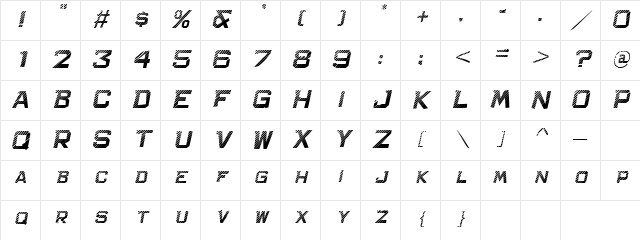
Complete Bachelor Pad Wood JL Italic glyph index. Displaying only characters natively supported by Bachelor Pad Wood JL Italic font.
Bachelor Pad Wood JL echoes the hand-painted signage and woodblock typography of the American frontier, with a warm, rugged personality. The slanted form adds forward momentum and visual energy.
Font Pairing: Combine Bachelor Pad Wood JL with a simple slab or neutral sans - period-accurate companions reinforce the vintage feel without competing for attention.
Pro Tip: Use Bachelor Pad Wood JL for short, impactful bursts of text - it shines in poster headlines and product names rather than extended copy.